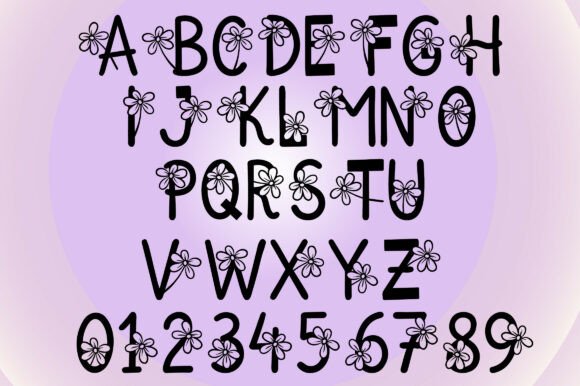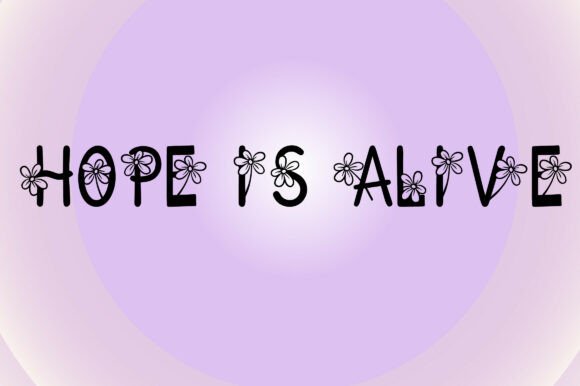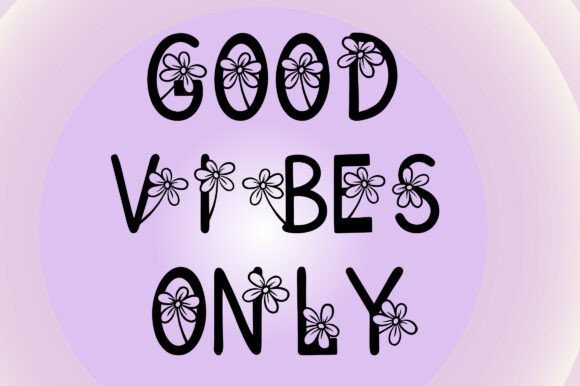
Introducing Emma Font: A Charming Decorative Display Font with a Sweet Floral Touch
Are you looking for a font that adds a touch of femininity and playfulness to your designs? Look no further than Emma Font, a beautiful decorative display font that is sure to capture your audience’s attention. With its sweet floral handcrafted style, Emma Font is perfect for a variety of creative projects, from invitations and logos to social media graphics and children’s designs.
What Makes Emma Font So Special?
EMMA is a charming decorative display font that features bold black strokes, playful uneven shapes, and delicate daisy flower accents. Its uppercase letterforms are designed to create a cute, feminine, and eye-catching look that is sure to make your designs stand out. The font is carefully crafted with uppercase letters A–Z and numbers 0–9, making it perfect for a wide range of applications.
Whether you’re a designer, crafter, or DIY enthusiast, Emma Font is a versatile font that can be used for a variety of creative projects. Here are some ideas to get you started:
- Invitations: Add a touch of elegance and sophistication to your invitations with Emma Font. Perfect for weddings, baby showers, and other special occasions.
- Logos and Branding: Create a memorable and eye-catching logo for your business or brand with Emma Font. Its playful and feminine style is sure to appeal to a wide range of audiences.
- Greeting Cards: Add a personal touch to your greeting cards with Emma Font. Perfect for birthdays, holidays, and other special occasions.
- Packaging: Make your products stand out with Emma Font. Perfect for packaging design, labels, and other marketing materials.
- Posters: Create eye-catching posters with Emma Font. Perfect for advertising, promotions, and other marketing campaigns.
- Children’s Designs: Emma Font is perfect for children’s designs, including children’s books, educational materials, and activity sheets.
- Social Media Graphics: Add a touch of personality to your social media graphics with Emma Font. Perfect for Facebook, Instagram, Twitter, and other social media platforms.
Why Choose Emma Font?
There are many reasons why Emma Font is a great choice for your design projects. Here are a few:
- Unique and Eye-Catching: Emma Font is a unique and eye-catching font that is sure to capture your audience’s attention.
- Feminine and Playful: Emma Font has a feminine and playful style that is perfect for a wide range of design projects.
- Handcrafted Style: Emma Font has a handcrafted style that gives it a personal and unique touch.
- Easy to Read: Despite its decorative style, Emma Font is easy to read and understand.
Tips for Using Emma Font
Here are a few tips for using Emma Font in your design projects:
- Use it Sparingly: Emma Font is a decorative font, so it’s best to use it sparingly. Use it for headings, titles, and other important text.
- Pair it with Other Fonts: Emma Font pairs well with other fonts, including serif and sans-serif fonts. Experiment with different font combinations to find the perfect look for your design.
- Experiment with Colors: Emma Font looks great in a variety of colors, including bold and bright colors. Experiment with different colors to find the perfect look for your design.
Emma Font is a charming decorative display font that is perfect for a wide range of design projects. With its sweet floral handcrafted style, Emma Font is sure to capture your audience’s attention and add a touch of femininity and playfulness to your designs. Whether you’re a designer, crafter, or DIY enthusiast, Emma Font is a great choice for any creative project.